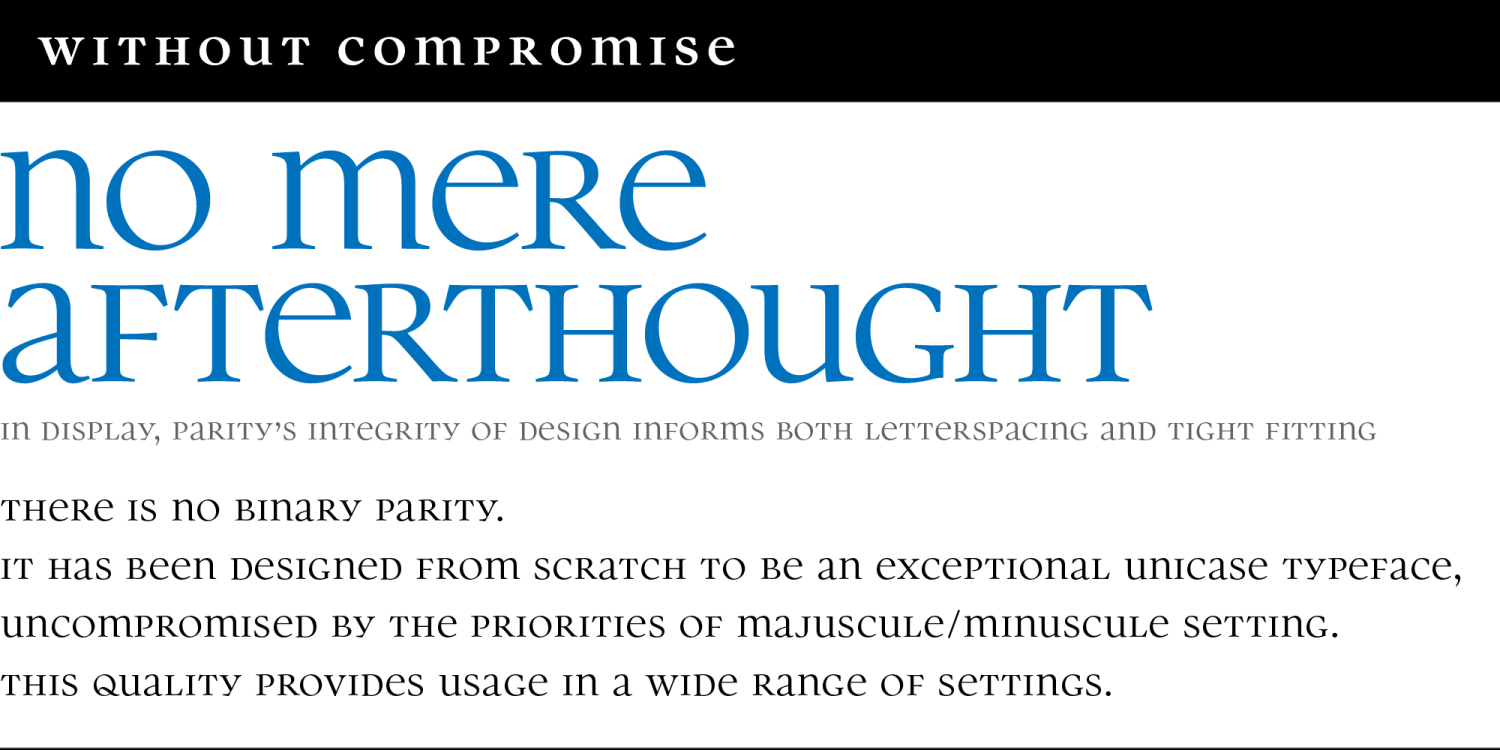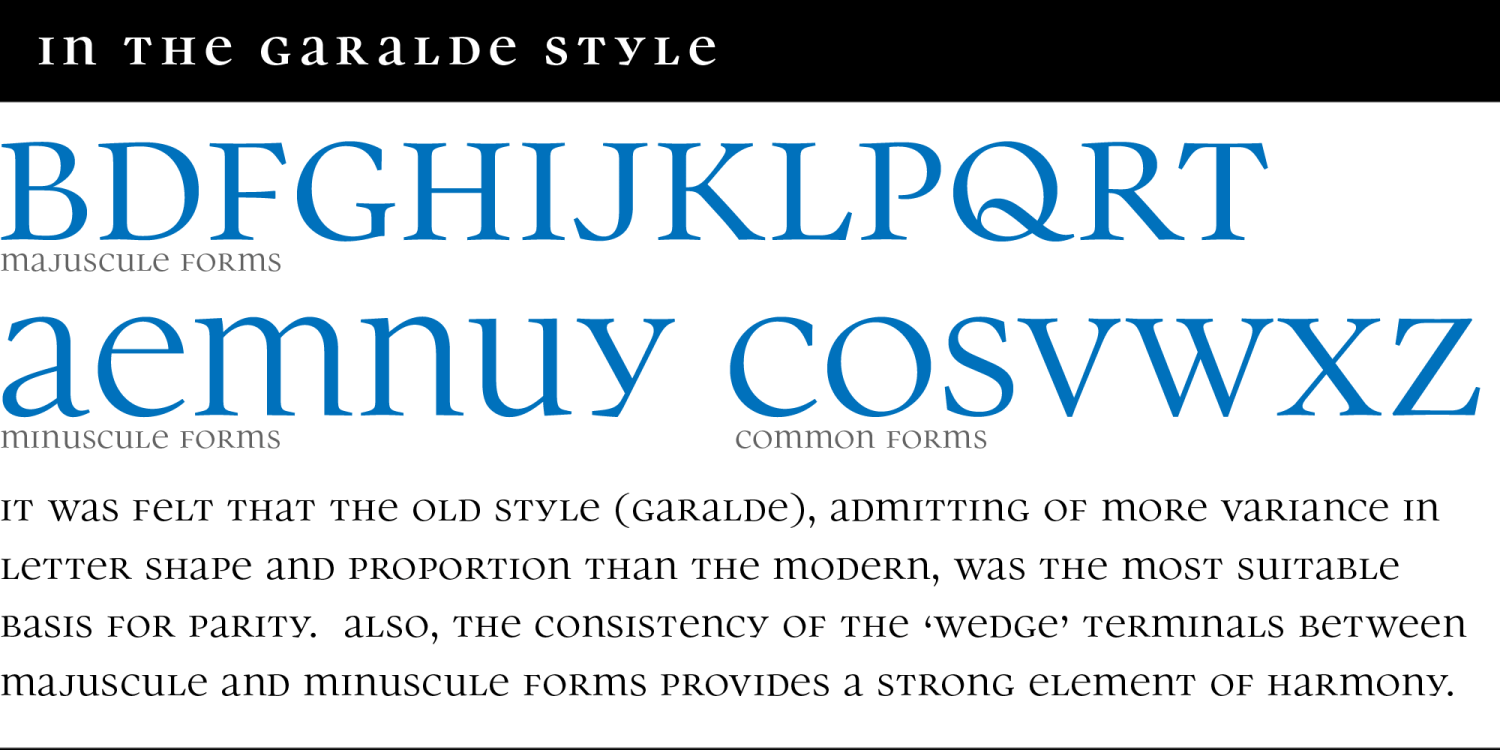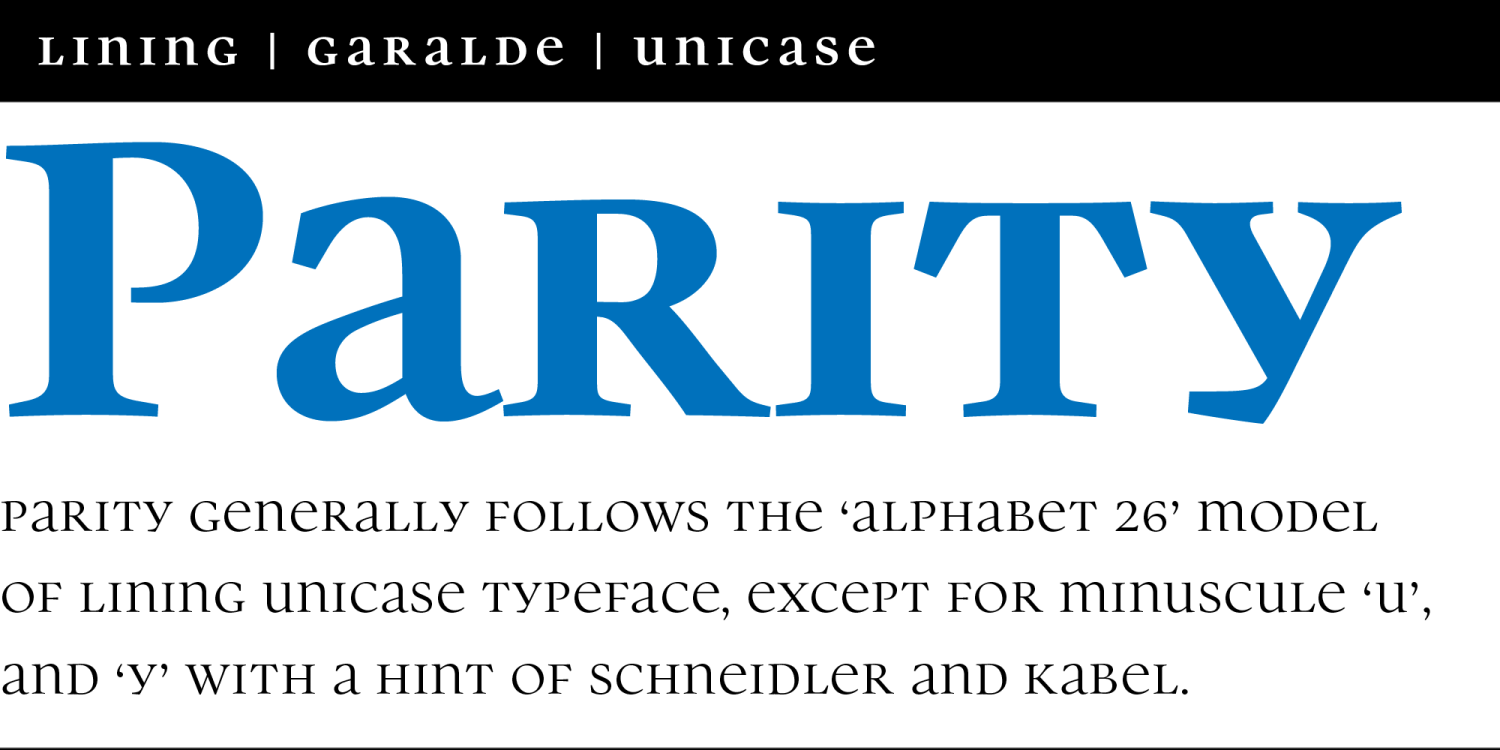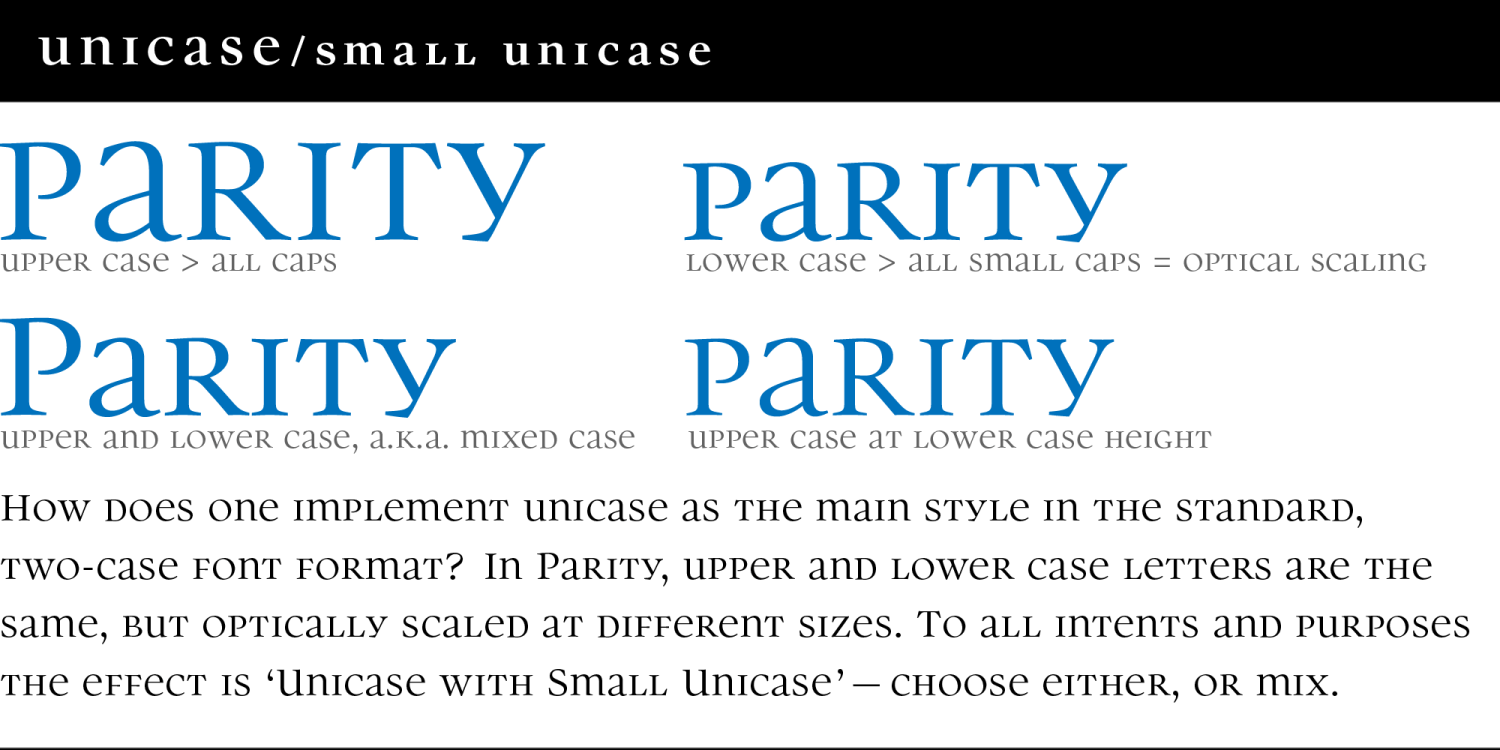
About Parity
There is no bicameral Parity. It has been designed from scratch to be an exceptional unicase typeface, uncompromised by the priorities of mixed case or all-cap setting. Each glyph is shaped, proportioned and detailed for one purpose only: to optimize…